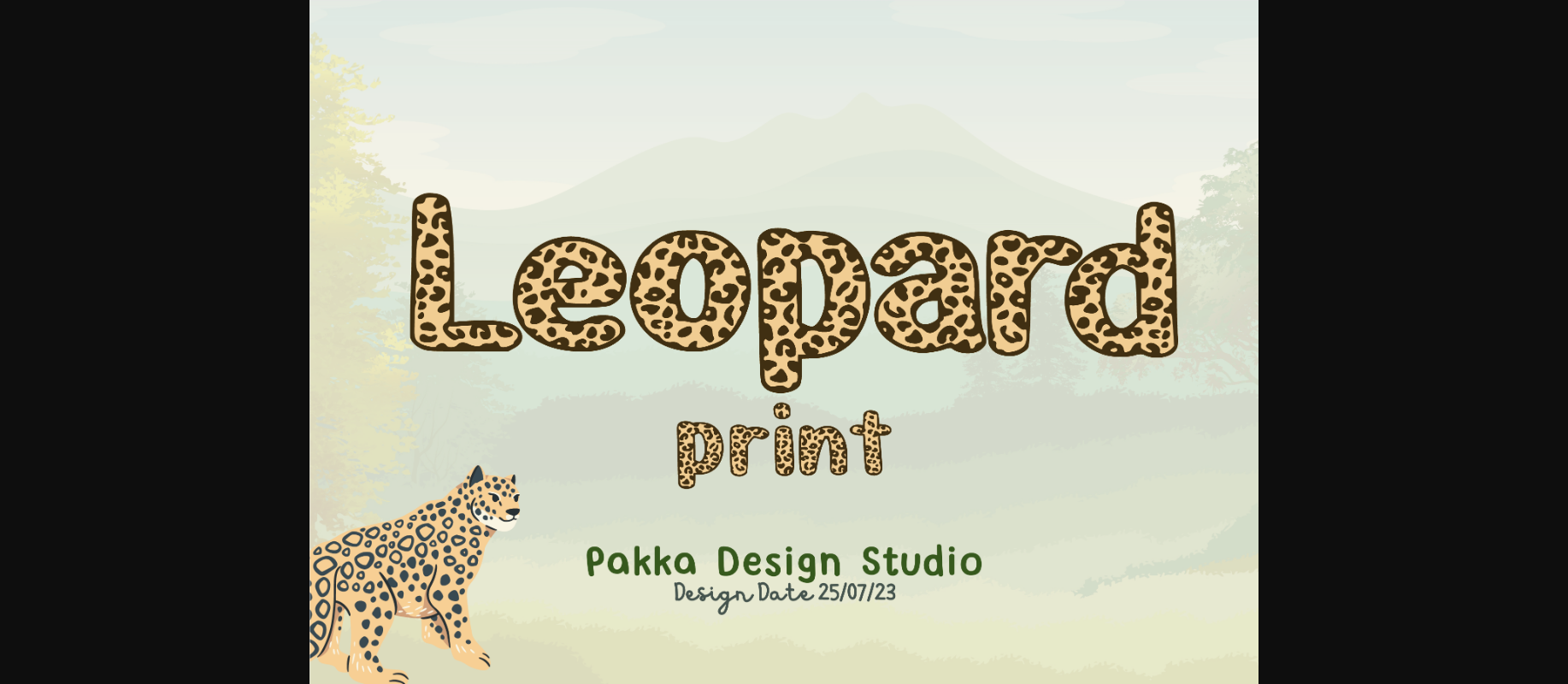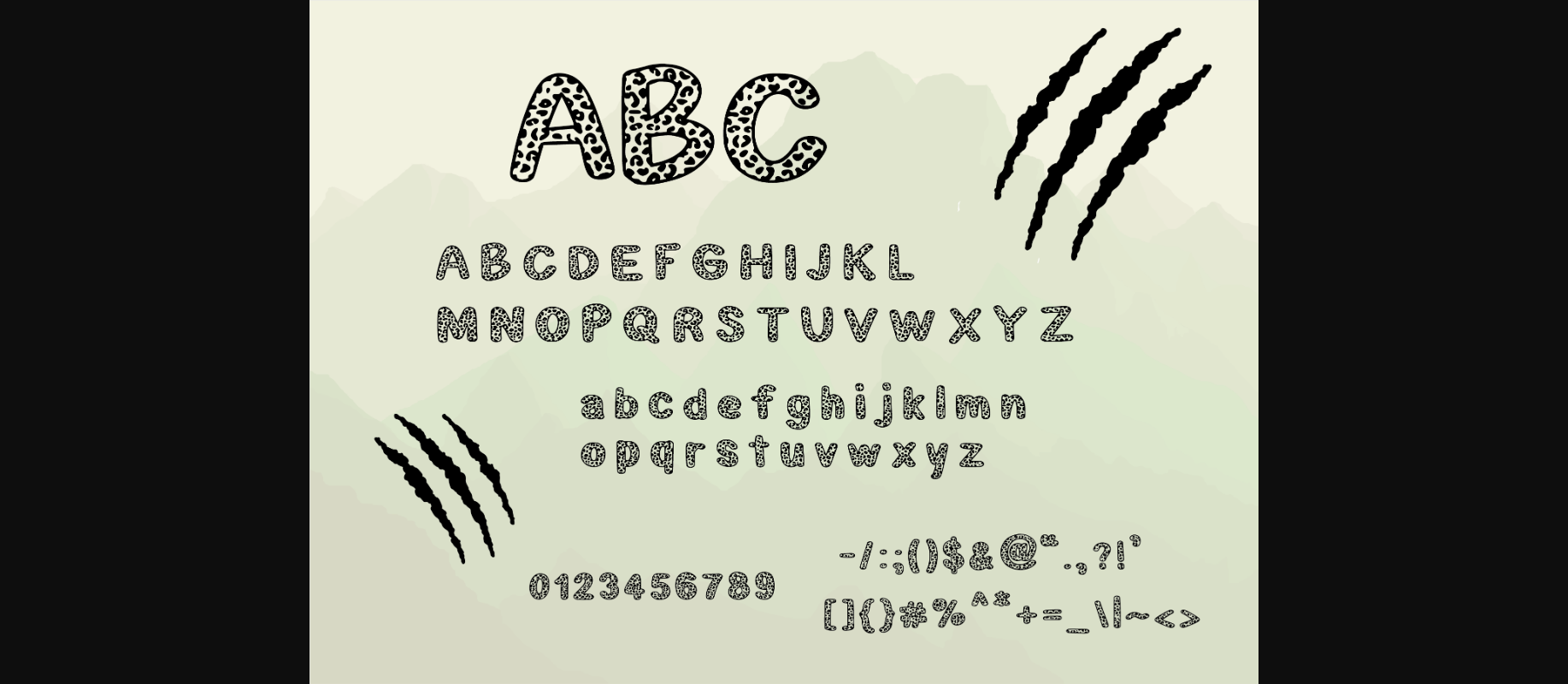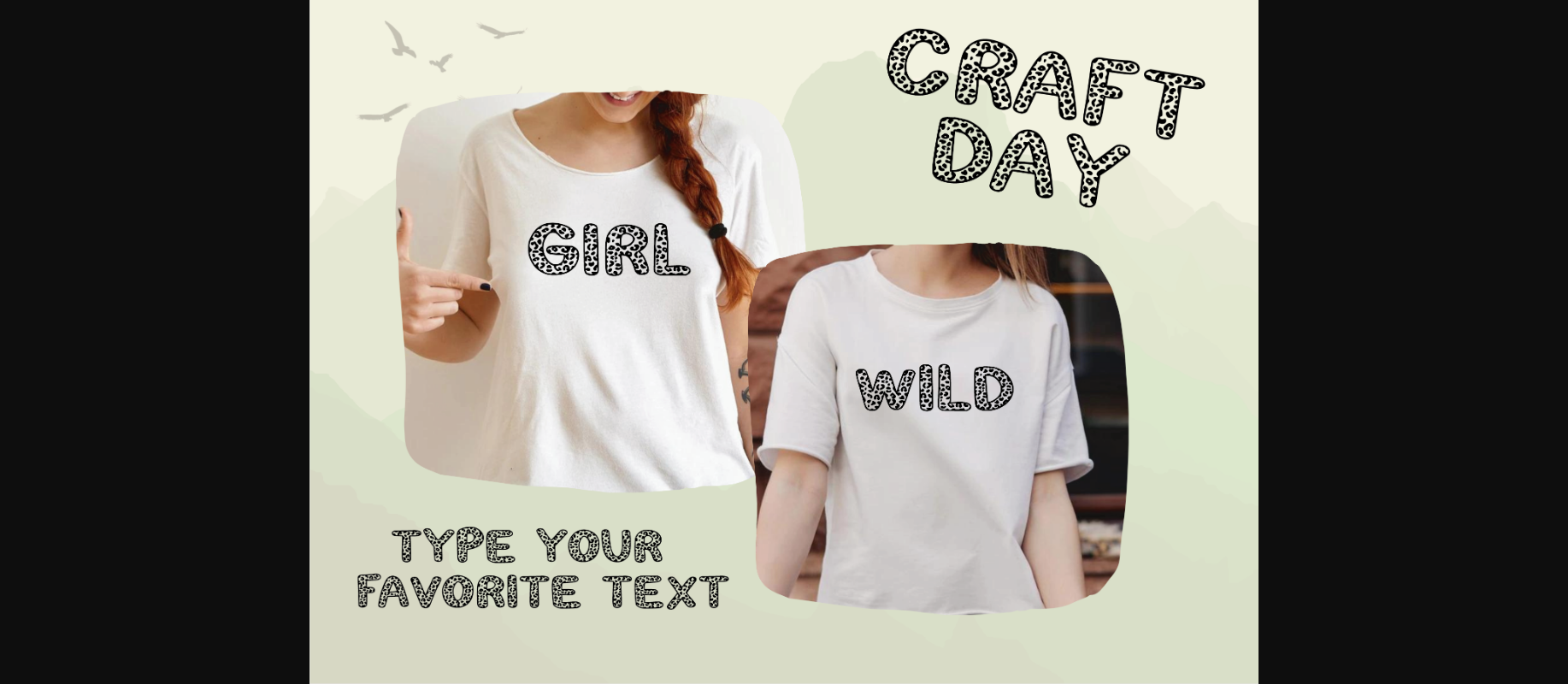
About Leopard Print Font
A leopard print style font in a wild animal theme embodies the untamed allure of the jungle with the fierce and captivating patterns of a leopard’s spots. Each letter showcases the bold and striking essence of leopard print, evoking a sense of adventure and wild beauty. The font captures the untamed spirit of wild animals, reminiscent of lush forests and untrodden paths. With its leopard print-inspired appearance, this font adds a touch of exotic and powerful flair to any design. It conveys a sense of daring and mystery, making it the perfect choice for projects related to wildlife, jungle explorations, or anything that aims to evoke a thrilling and adventurous wild animal aesthetic.